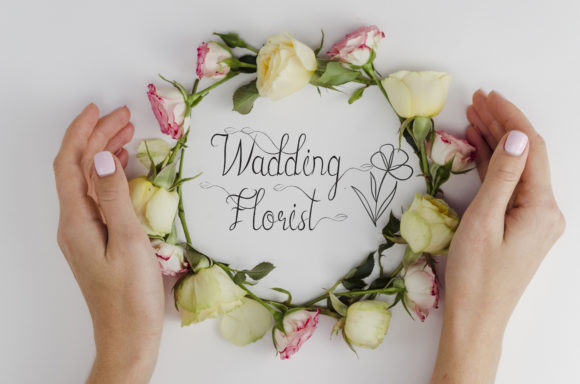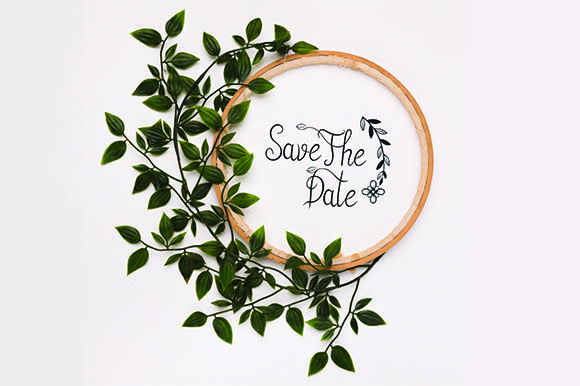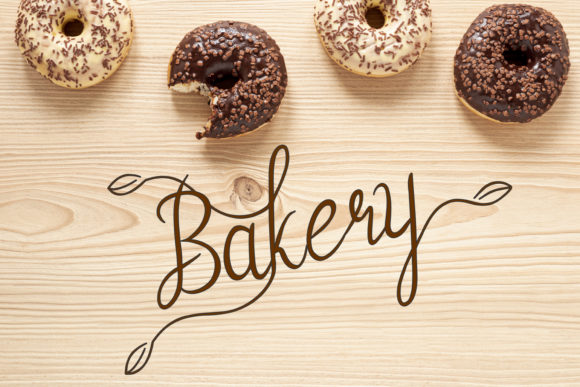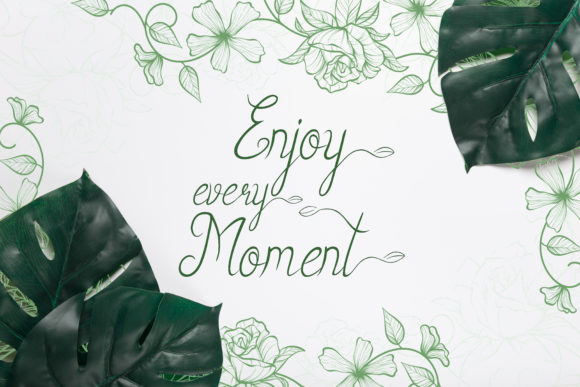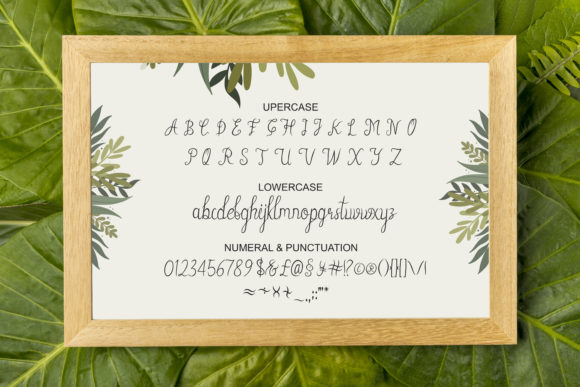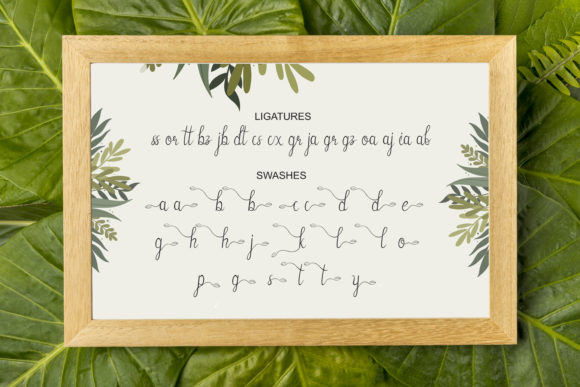
Introducing Fabrik Font: The Ultimate Cute and Casual Handwritten Font
Are you tired of using the same old fonts for your creative projects? Look no further! Fabrik Font is here to revolutionize your design game with its incredibly friendly feel and stunning swashes and ligatures. This gorgeous handwritten font is perfect for designers, crafters, and DIY enthusiasts who want to add a touch of personality to their work.
The Features of Fabrik Font
Fabrik Font boasts an array of features that make it a standout in the world of typography. Some of its key characteristics include:
- Cute and Casual: Fabrik Font has a playful and approachable vibe that’s perfect for creating engaging and friendly designs.
- Handwritten: With its fluid strokes and natural curves, Fabrik Font mimics the look and feel of handwritten script.
- Gorgeous Swashes: Add a touch of elegance to your designs with Fabrik’s beautiful swashes that can be used to create stunning headings and titles.
- Ligatures: Fabrik Font features a range of ligatures that allow you to create unique and creative connections between letters.
The Versatility of Fabrik Font
One of the best things about Fabrik Font is its versatility. Whether you’re designing for social media, crafting a DIY project, or creating a professional brand identity, Fabrik Font can adapt to any style or theme. Here are just a few examples of how you can use Fabrik Font:
- Instagram Fonts: Use Fabrik Font to create eye-catching Instagram posts and stories that will make your followers stop and take notice.
- Calligraphy Scripts: With its elegant swashes and ligatures, Fabrik Font is perfect for creating beautiful calligraphy scripts for DIY projects, such as wedding invitations, party decorations, and more.
- Branding and Identity: Fabrik Font can be used to create a unique and memorable brand identity for businesses, including logos, packaging, and marketing materials.
Why Designers and Crafters Love Fabrik Font
So, why do designers and crafters love Fabrik Font? Here are just a few reasons:
- Easy to Read: Despite its playful and creative vibe, Fabrik Font is incredibly easy to read, making it perfect for body text and longer blocks of content.
- Highly Customizable: With its range of swashes and ligatures, Fabrik Font can be customized to fit any design style or theme.
- Unique and Creative: Fabrik Font offers a level of uniqueness and creativity that’s hard to find in other fonts, making it perfect for designers and crafters who want to stand out from the crowd.
How to Use Fabrik Font in Your Designs
Ready to get started with Fabrik Font? Here are a few tips for incorporating it into your designs:
- Pair it with Other Fonts: Experiment with pairing Fabrik Font with other fonts to create a unique and visually appealing combination.
- Use it for Headings and Titles: Fabrik Font’s swashes and ligatures make it perfect for creating stunning headings and titles.
- Experiment with Colors and Textures: Don’t be afraid to get creative with colors and textures when using Fabrik Font – it’s a great way to add depth and interest to your designs.
In conclusion, Fabrik Font is a game-changer for designers and crafters who want to add a touch of personality and creativity to their work. With its cute and casual vibe, gorgeous swashes and ligatures, and versatility, Fabrik Font is the perfect choice for anyone looking to create stunning designs that stand out from the crowd. So why wait? Give Fabrik Font a try today and see the difference it can make in your designs!